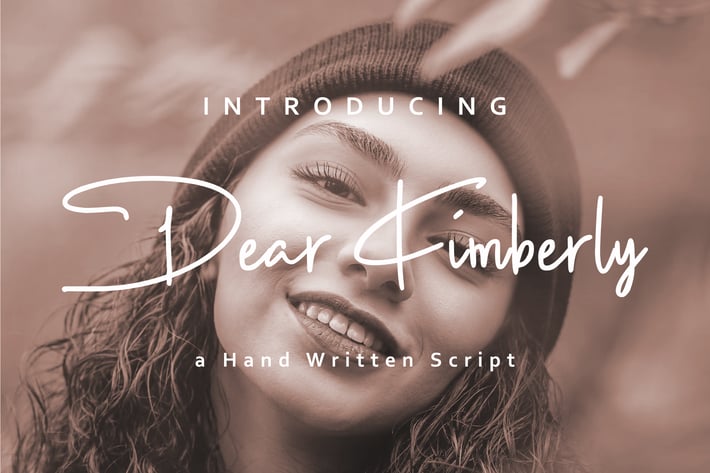
Dear Kimberly - handwritten script font
zamjump
Introducing the Dear Kimberly it our beautiful handcrafted fonts – original handwritten styles carefully digitized using simple but highly effective methods. This font offers authentic charm and is versatile for a variety of projects, including logos, book covers, wedding invitations, business materials, quotes, and more. Enhance your designs with the charming appeal of our uniquely crafted handwritten fonts, designed to bring a touch of authenticity and elegance to any creative endeavor.
- Multilanguage
- Alternate ending swash